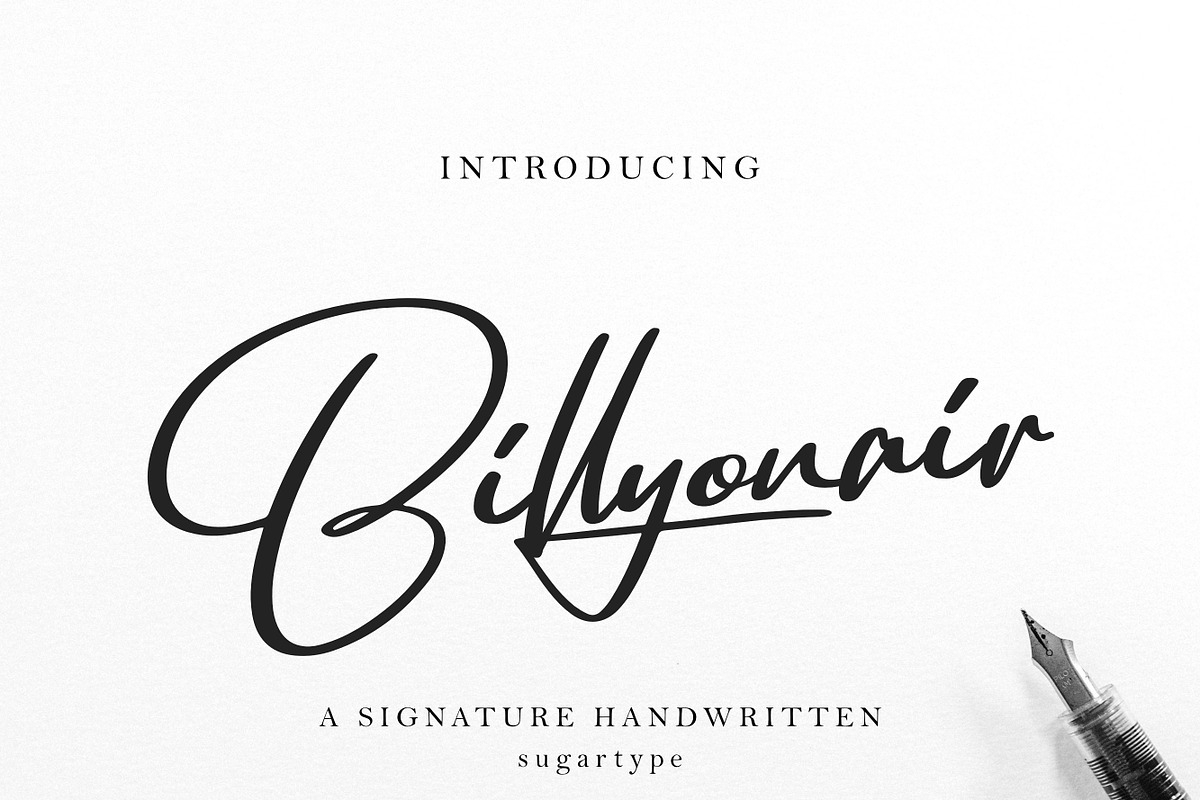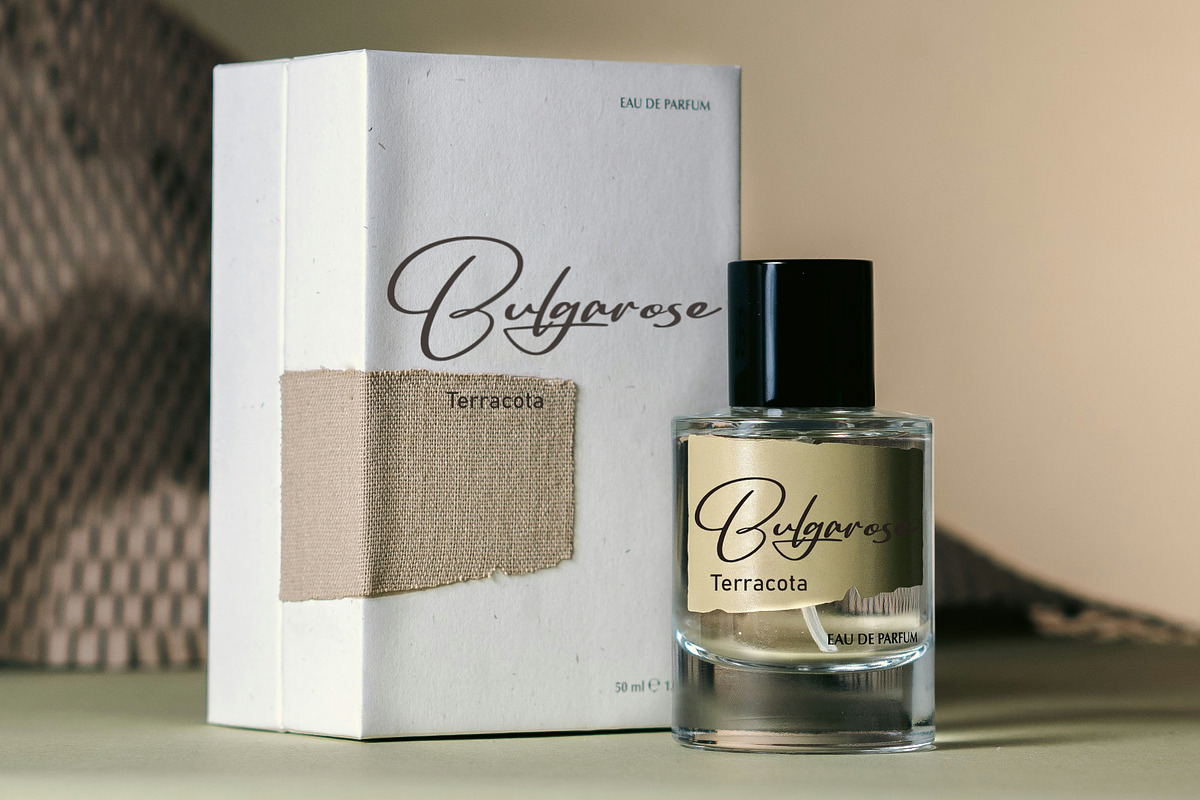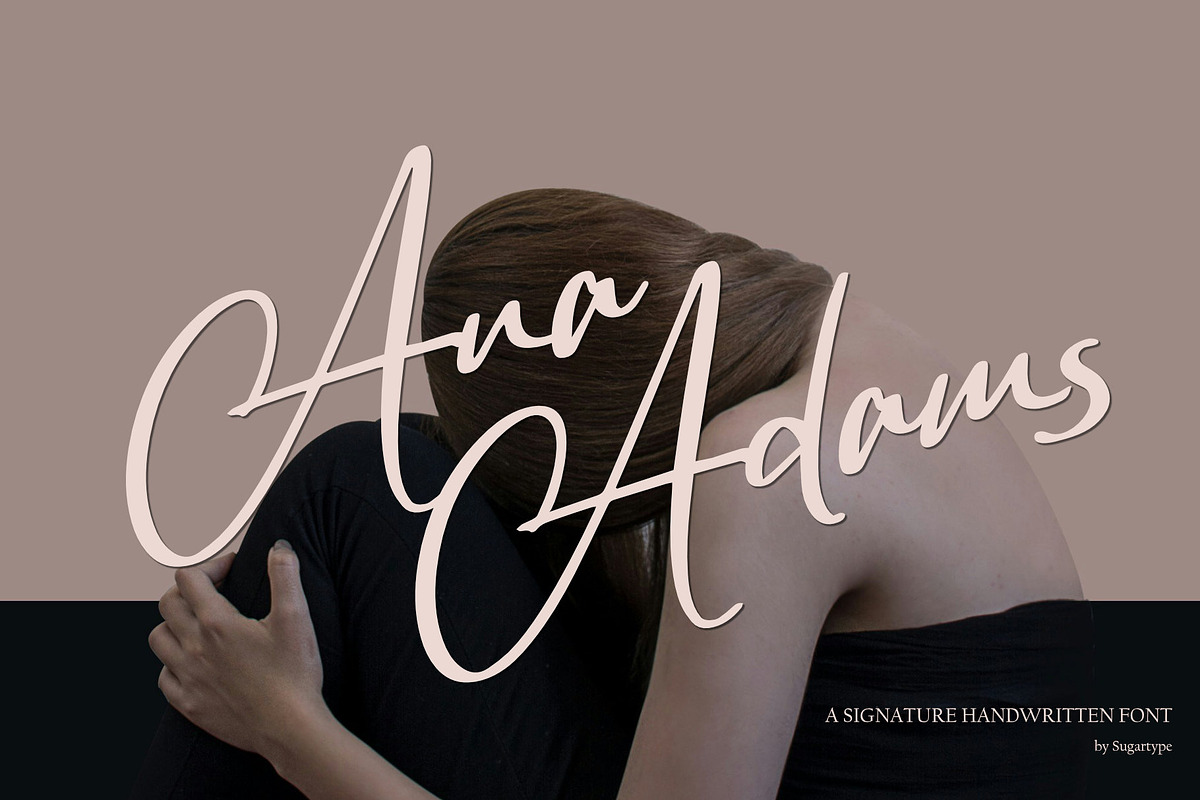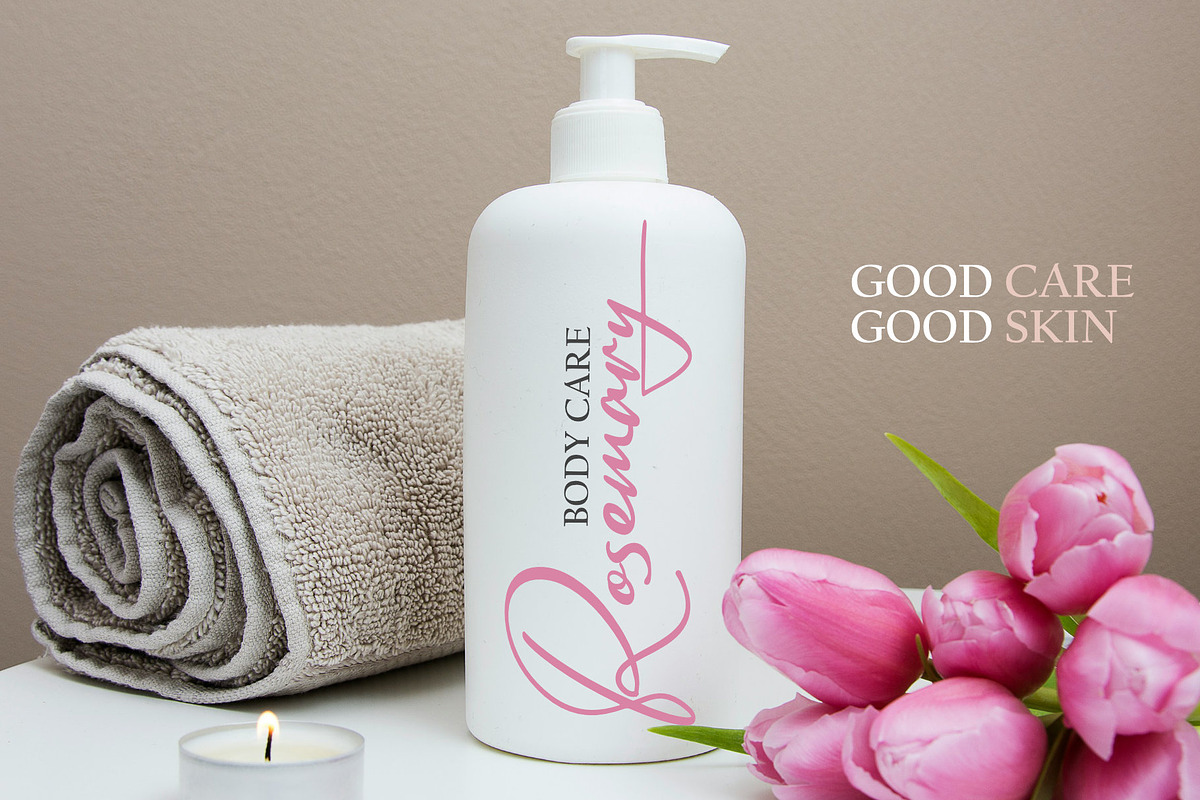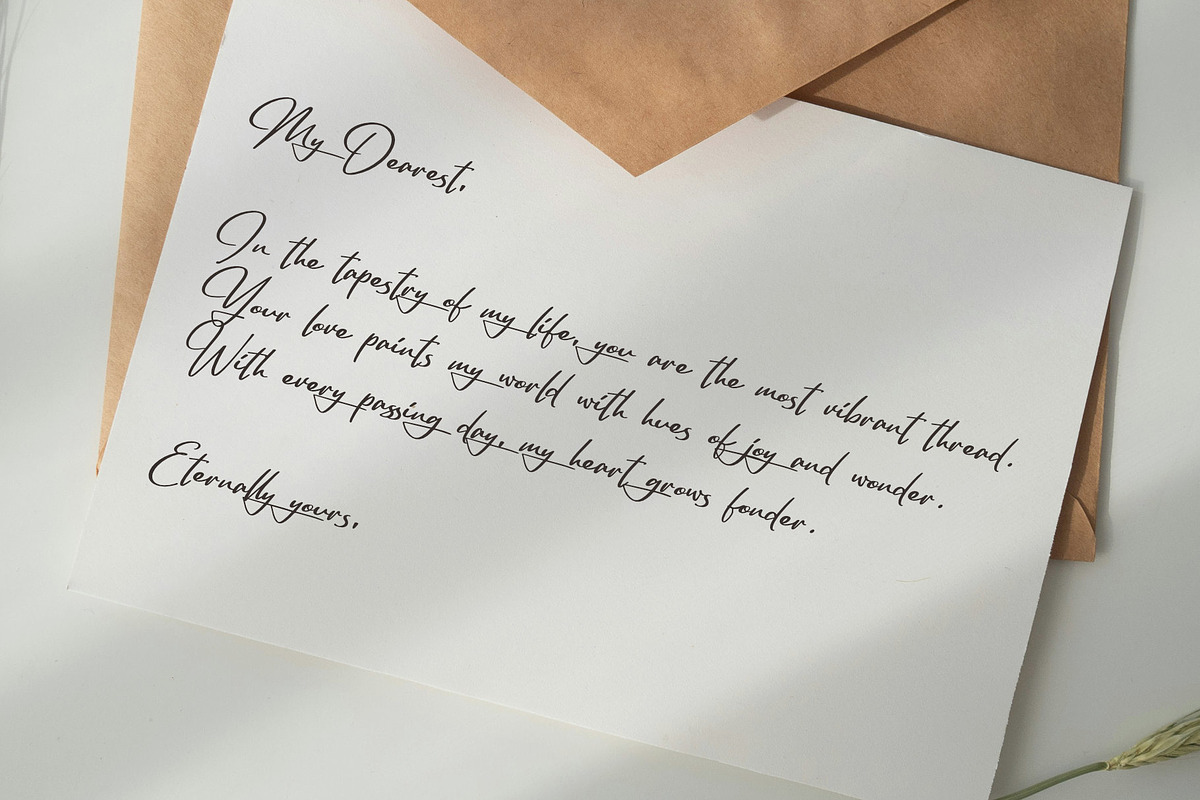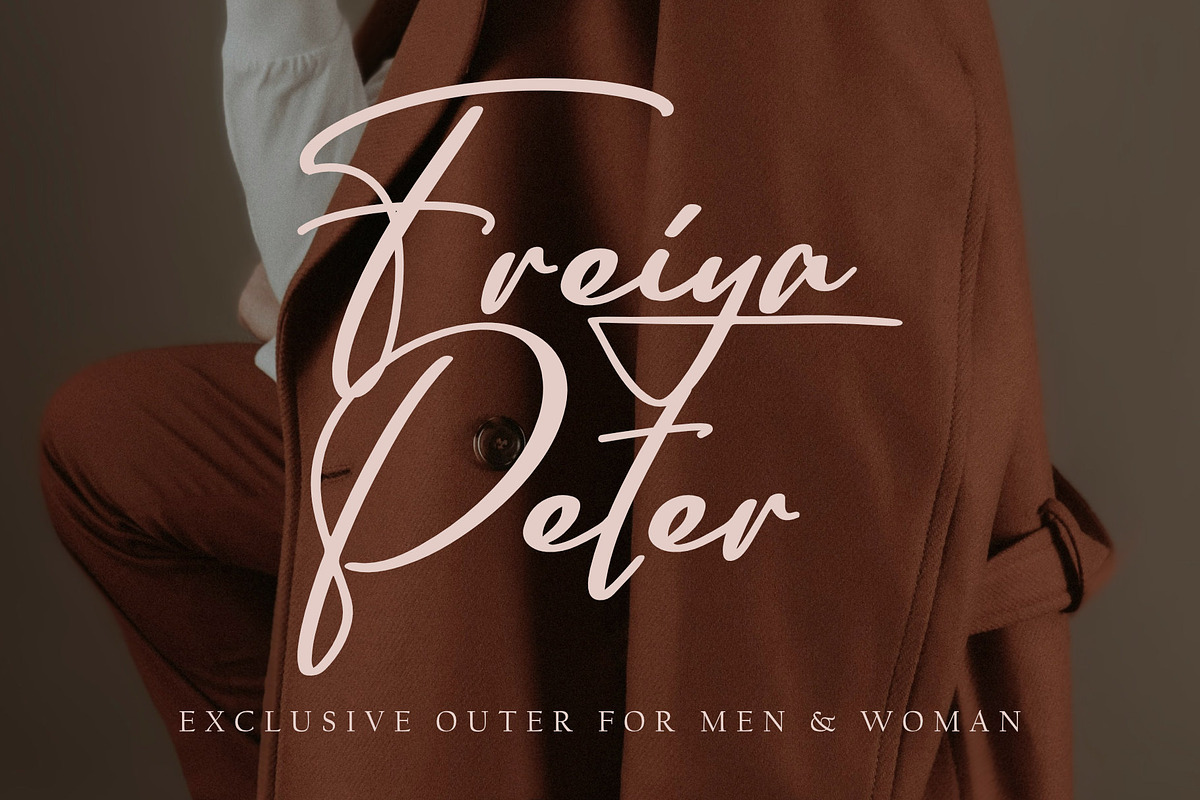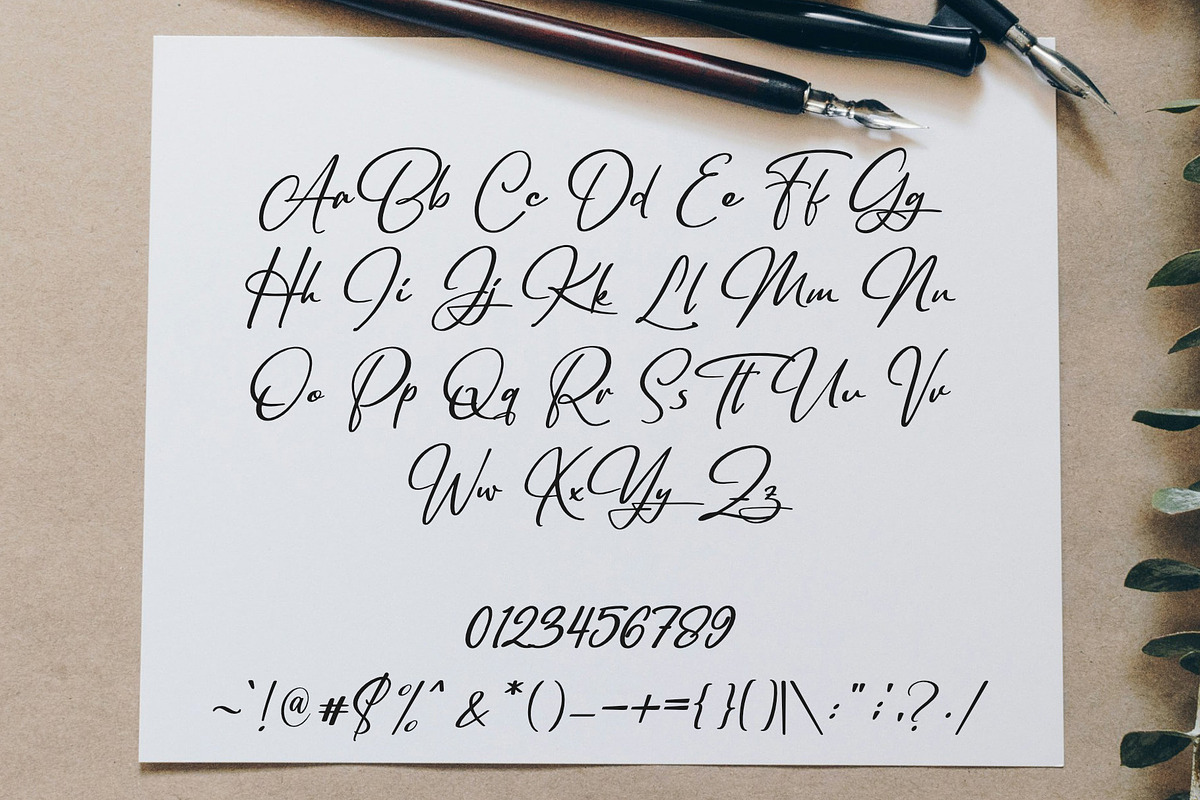
Billyonair | Signature Font
Billyonair is a handwritten font that comes with an authentic character for signature. It looks stunning on wedding invitations, thank you cards, quotes, greeting cards, logos, business cards, and every other design that needs a handwritten touch.
Font consist of uppercase, Lowercase, Numeral, Punctuation